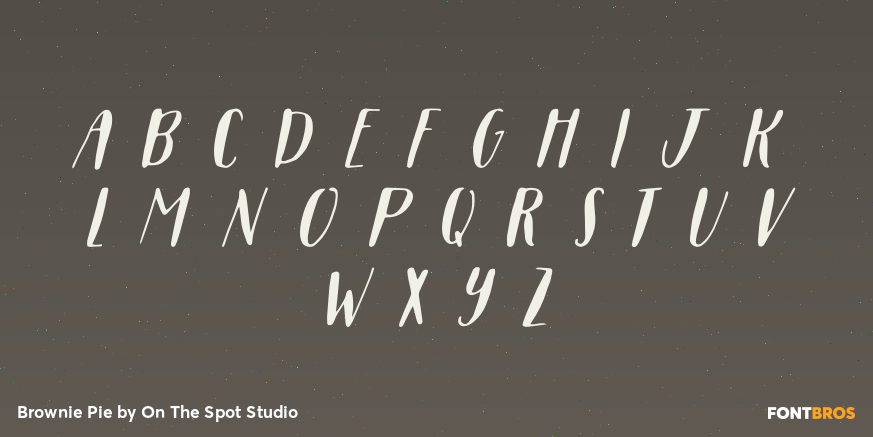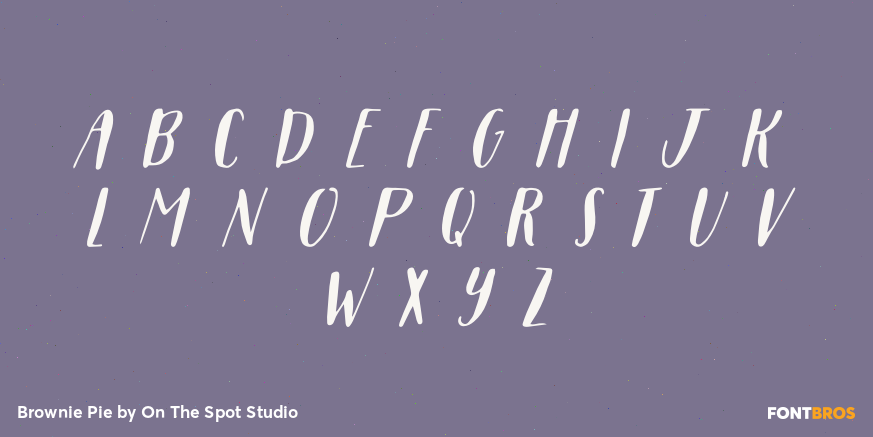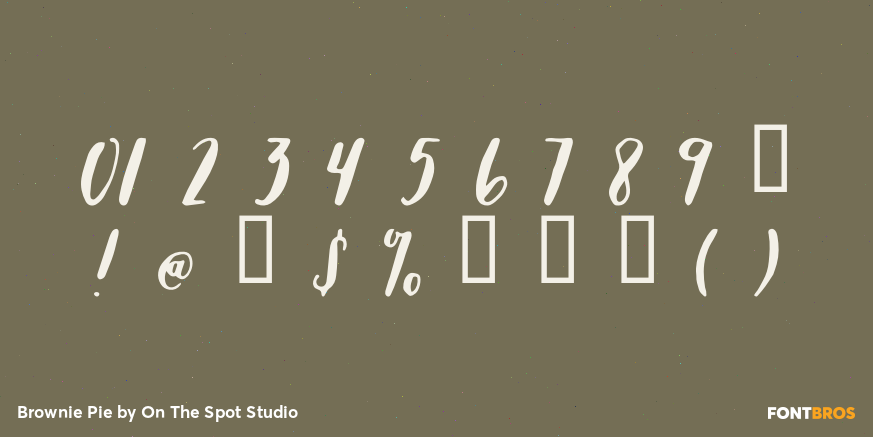
Brownie Pie
Font Family by On The Spot Studio
hand lettered with pen and ink, brownie pie is a fun design font that would look fabulous in your logo, card designs, marketing pieces, and more!